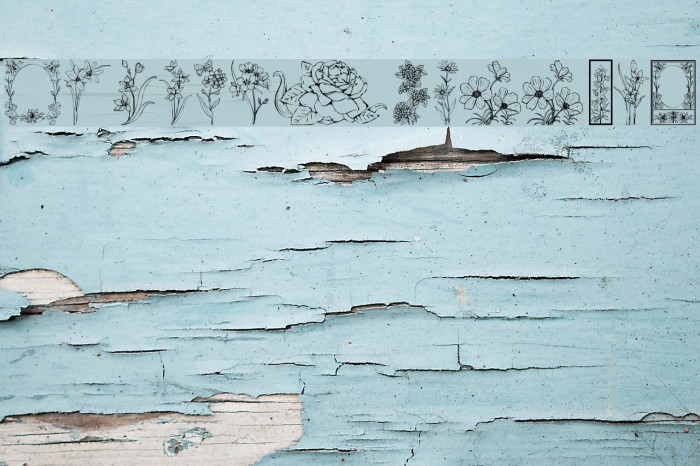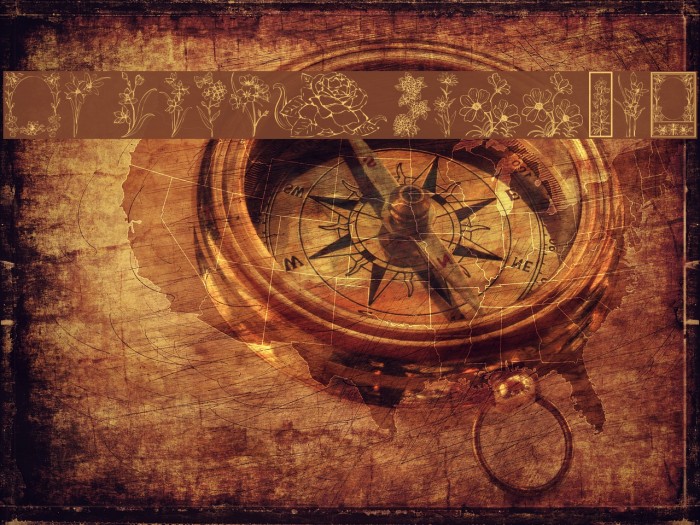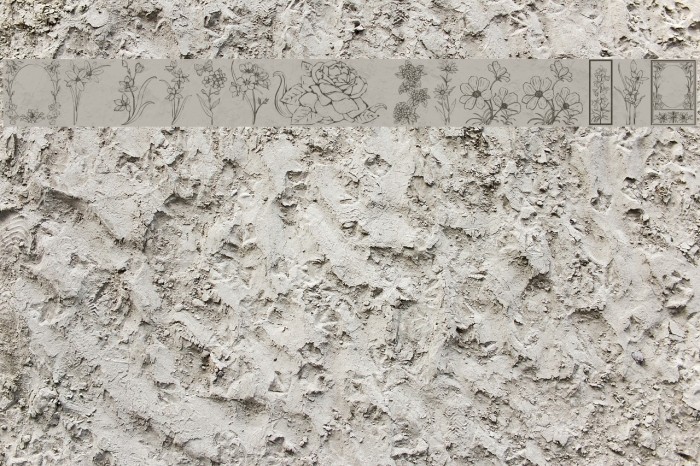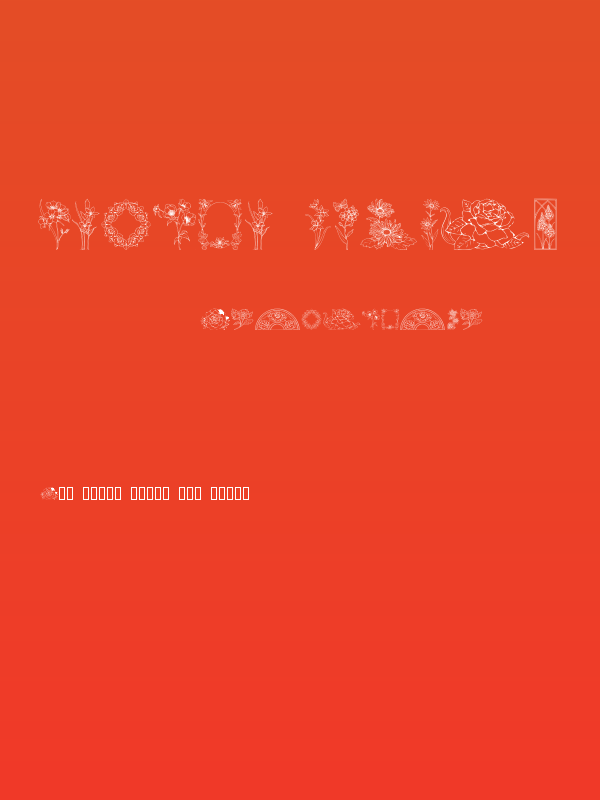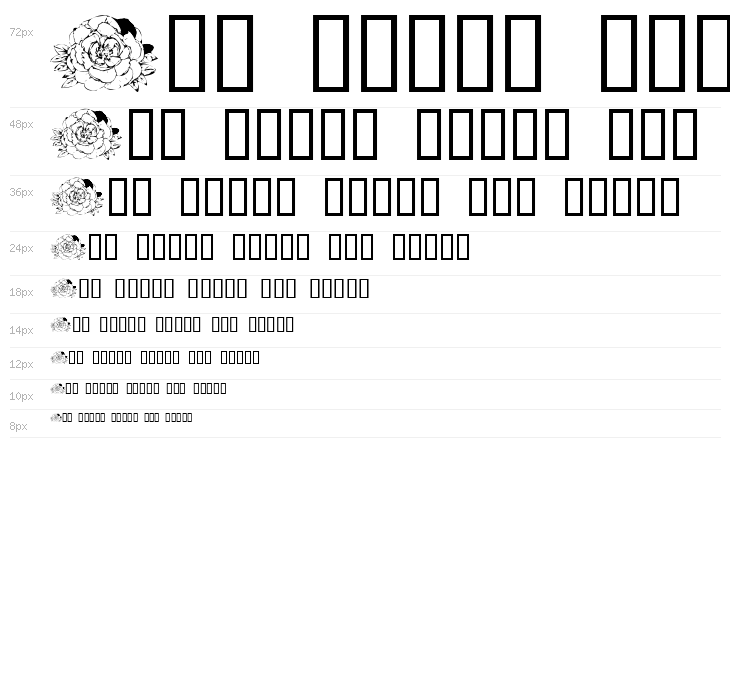
Floral Design Font
Floral Design Description
A decorative font featuring intricate floral illustrations and ornate frames, with each character represented by a unique botanical or ornamental design. The style is highly detailed and artistic, emphasizing natural forms and vintage embellishments.
| Overall Style | Decorative, Vintage, Artistic |
| Use Case | Logos, Headlines, Invitations, Decorative elements |
| Proposed Projects | Wedding invitations, greeting cards, decorative headings, event posters, branding for florists or botanical products. |